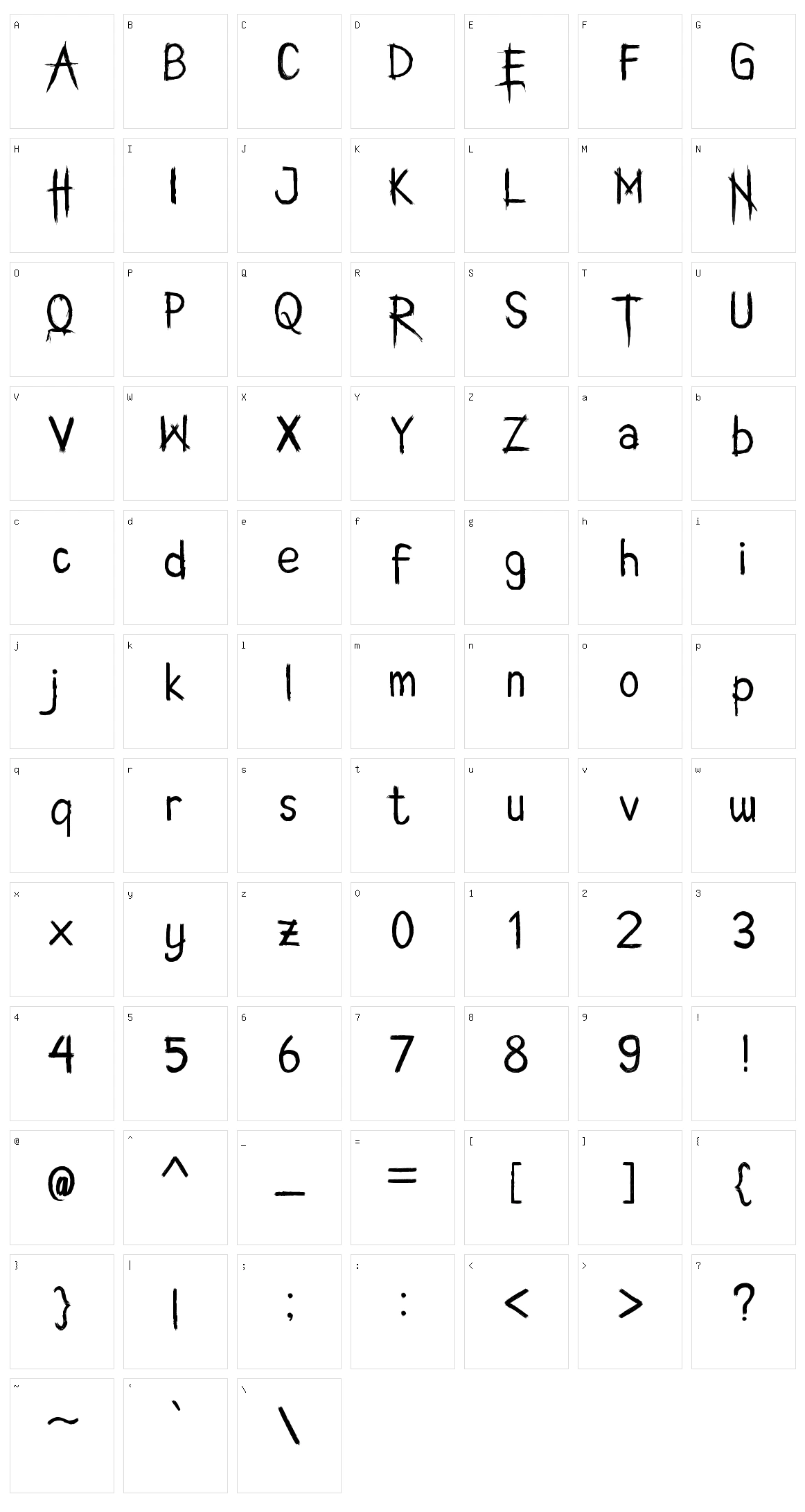
The free font Another Scream is carefully designed by OCSstudio, showcasing a thoughtful balance of creativity and usability and falls under the Horror font style. When you download the ZIP file, it contains only 111.84 KB of font files, making it lightweight and quick to download. Please review the license details below to understand permitted usage and distribution rights. If license information is not available, we recommend using this font for personal projects only or contacting the author directly for commercial usage permissions.